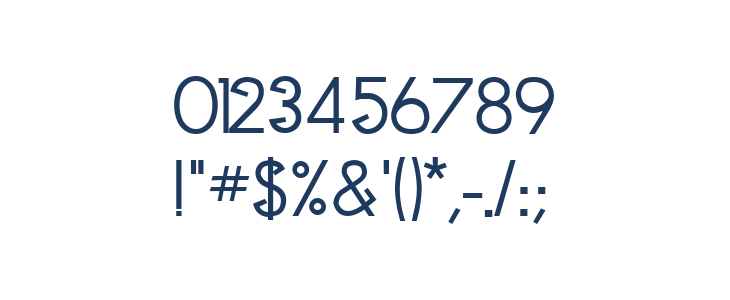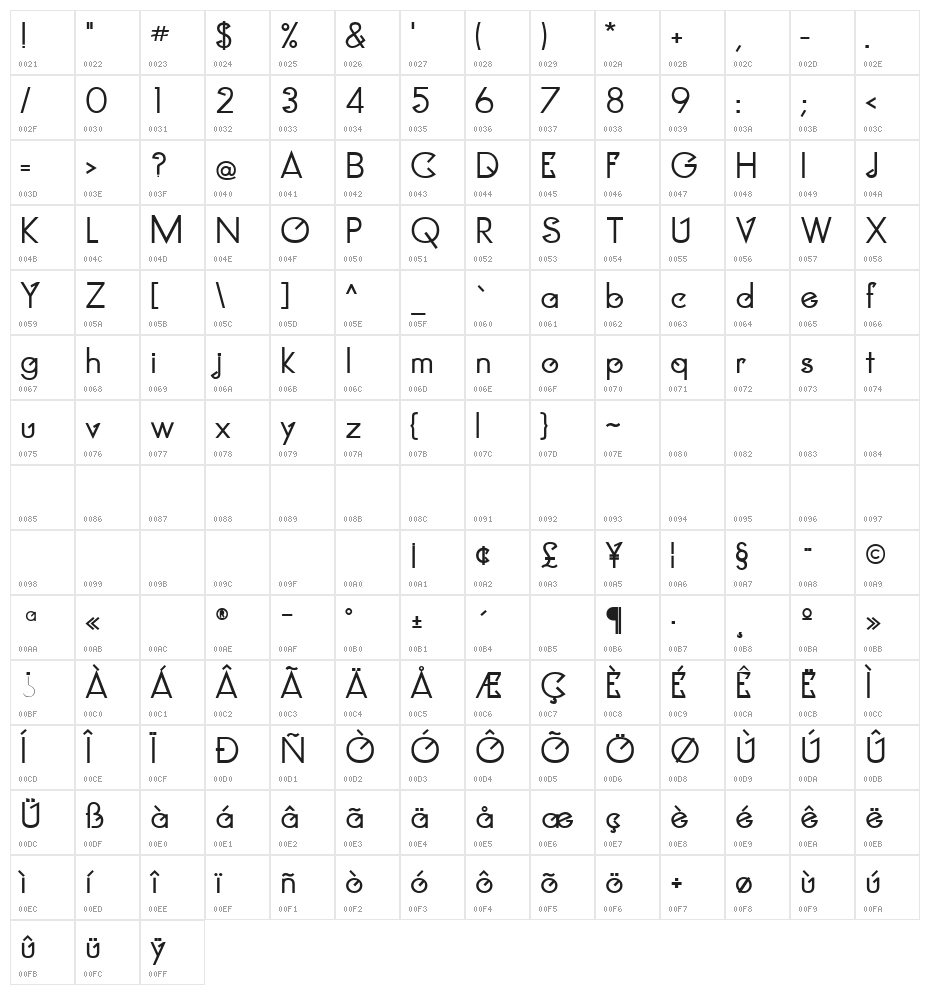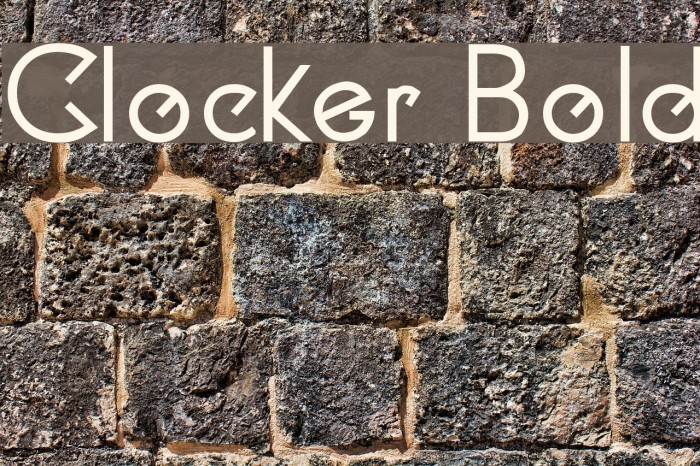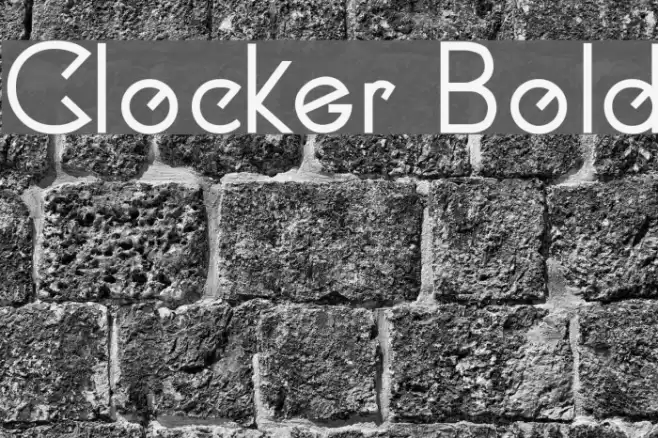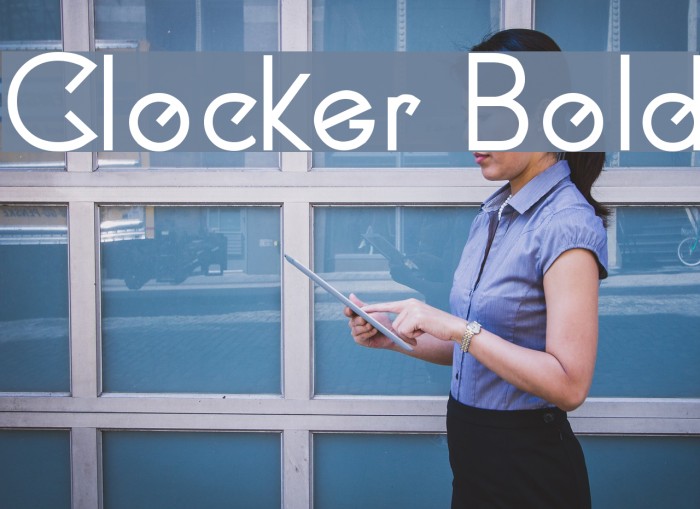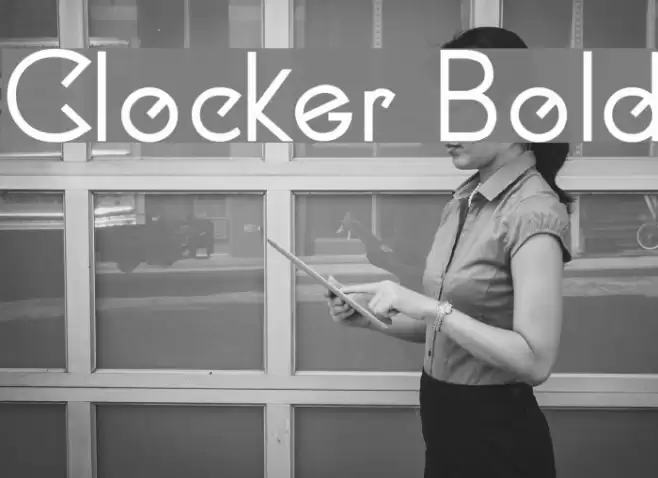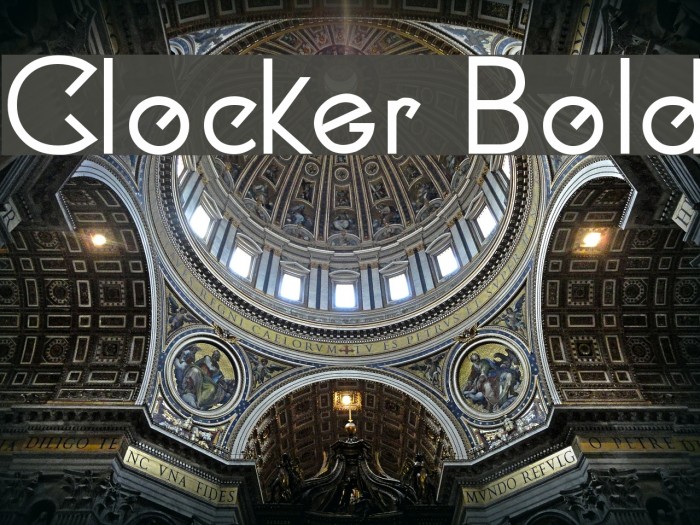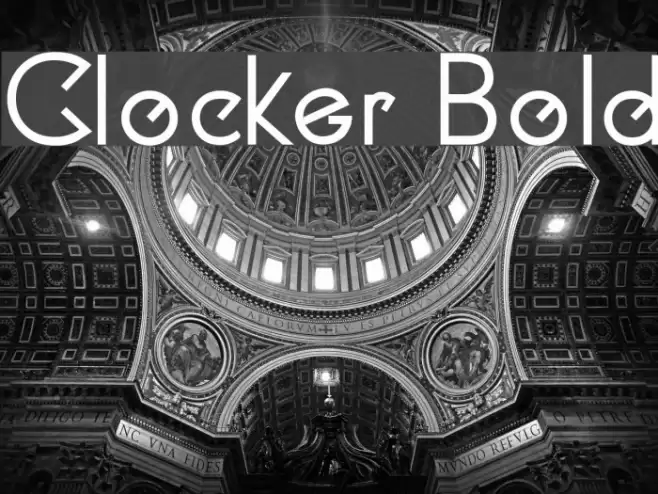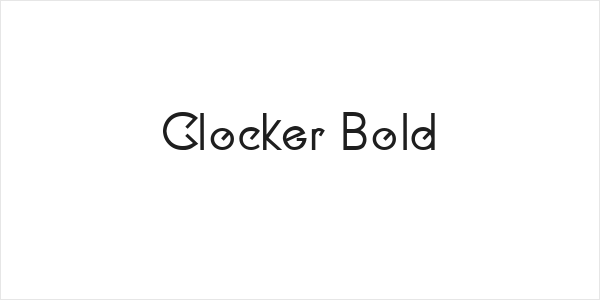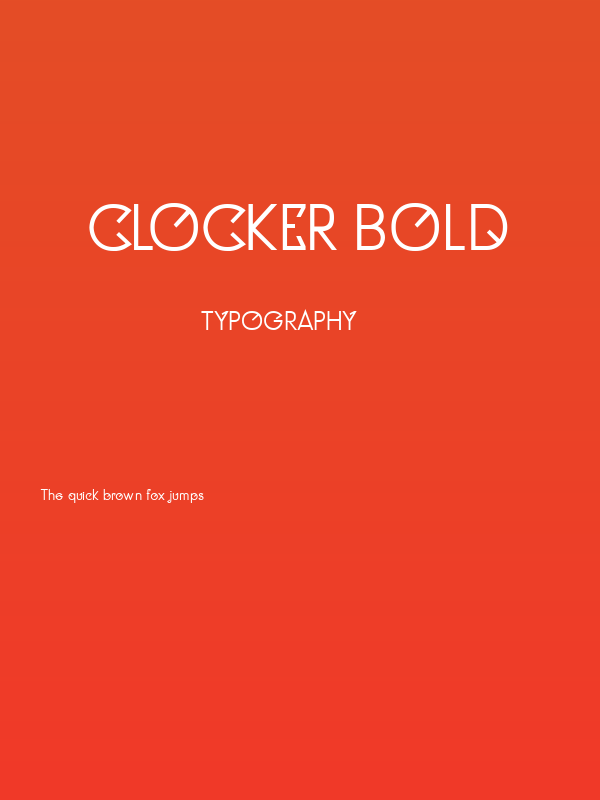
Clocker Bold Font
Clocker Bold Description
This font features a modern and geometric design with clean lines and a bold presence. The uppercase letters are characterized by their angular shapes and consistent stroke widths, creating a sense of uniformity and balance. The lowercase letters maintain the geometric theme, with rounded edges that soften the overall appearance. Numbers are designed with clarity and simplicity, ensuring readability. Special characters are well-integrated, matching the font's overall aesthetic. This font's boldness and geometric style make it suitable for a variety of design applications.